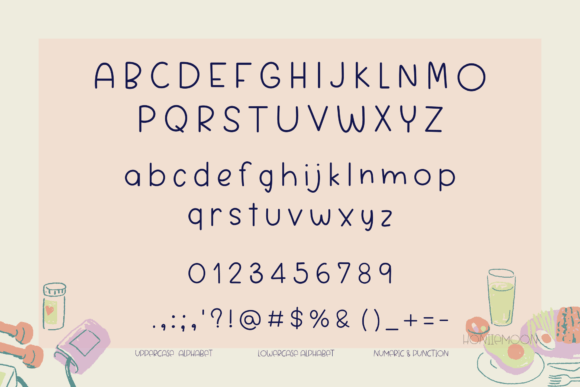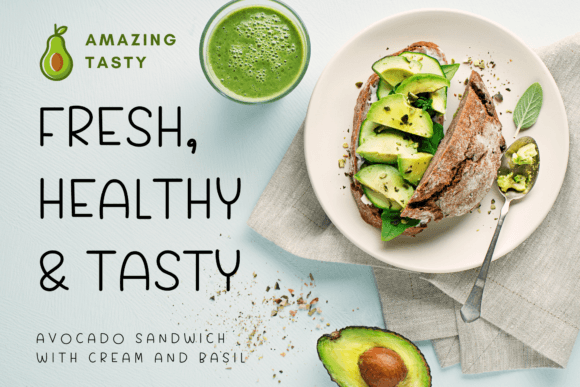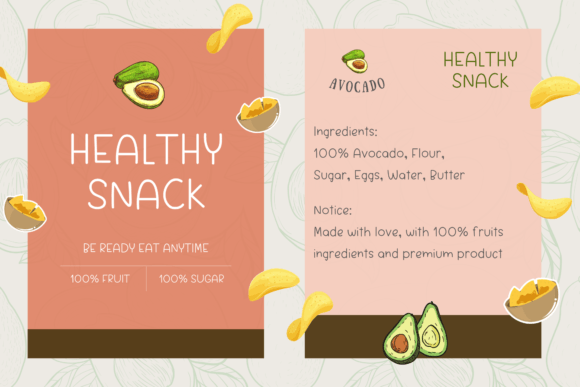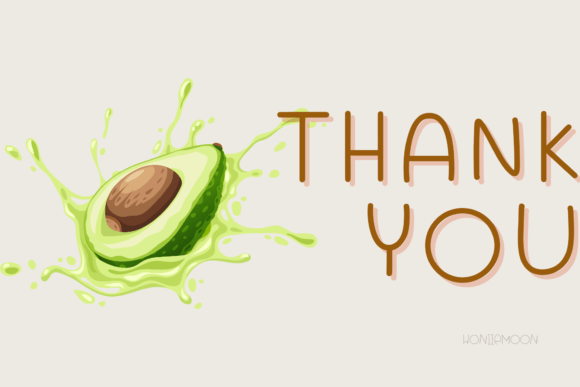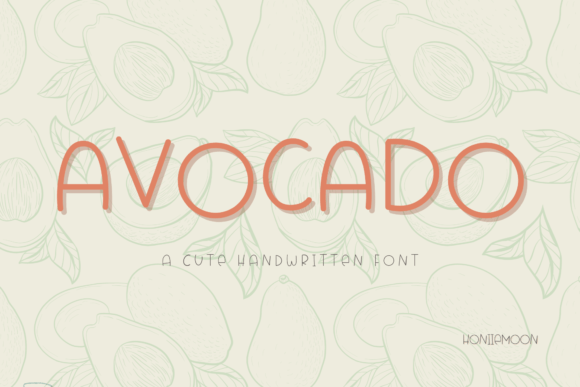
The Avocado Font: A Sweet Addition to Your Design Toolbox
The Avocado font is an adorable handwritten font that brings a cute and friendly vibe to your projects. With its playful strokes and charming style, this font adds a touch of sweetness to any design. Perfect for invitations, greeting cards, or any creative endeavor, Avocado is the go-to choice for a whimsical and lovable look.
So, what makes the Avocado font so special? Here are a few things I love:
- ✨ Playful and charming style that’s perfect for creative projects
- ✅ Easy to read, even at smaller font sizes
- 💕 Adorable handwritten feel that’s perfect for invitations and greeting cards
- 🎉 Highly versatile – use it for digital or print projects, or both!
Of course, no font is perfect, and Avocado has a few small quirks:
- 🤔 Limited character set – it’s not the best choice for body text or lengthy documents
- ⚠️ May not be the best choice for very formal or professional projects
The Story Behind Avocado: A Designer Inspiration
According to the designer, Avocado was inspired by the sweet and simple things in life – like fresh fruit, sunny days, and happy memories. The goal was to create a font that would bring a smile to people’s faces and add a touch of whimsy to their designs.
The designer spent countless hours perfecting the font, tweaking the letterforms and adjusting the spacing to create a smooth, flowing feel. And the result is a font that’s both adorable and highly versatile.
Q: What type of projects is Avocado best suited for?
A: Avocado is perfect for creative projects like invitations, greeting cards, and social media graphics. It’s also great for crafty projects like scrapbooking and DIY crafts.
Q: Is Avocado a difficult font to read?
A: No, Avocado is actually quite easy to read, even at smaller font sizes. However, it’s best suited for short texts or headlines rather than lengthy documents.